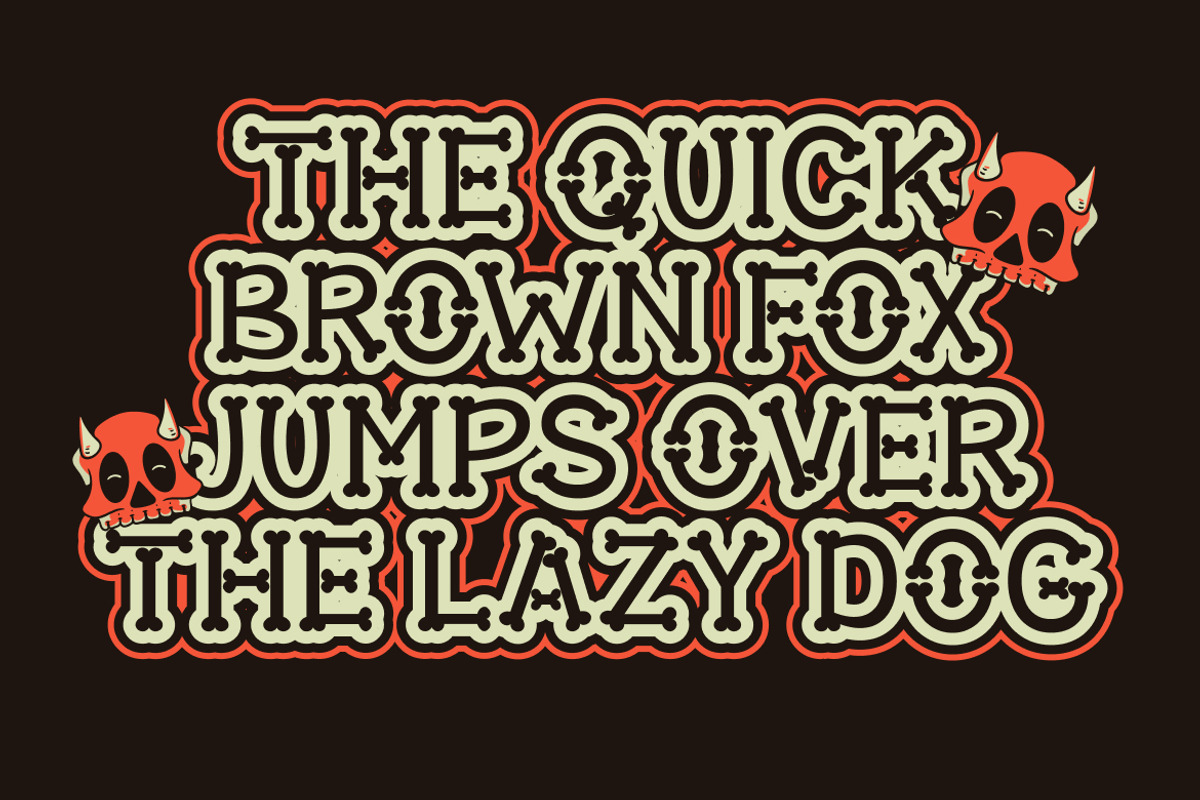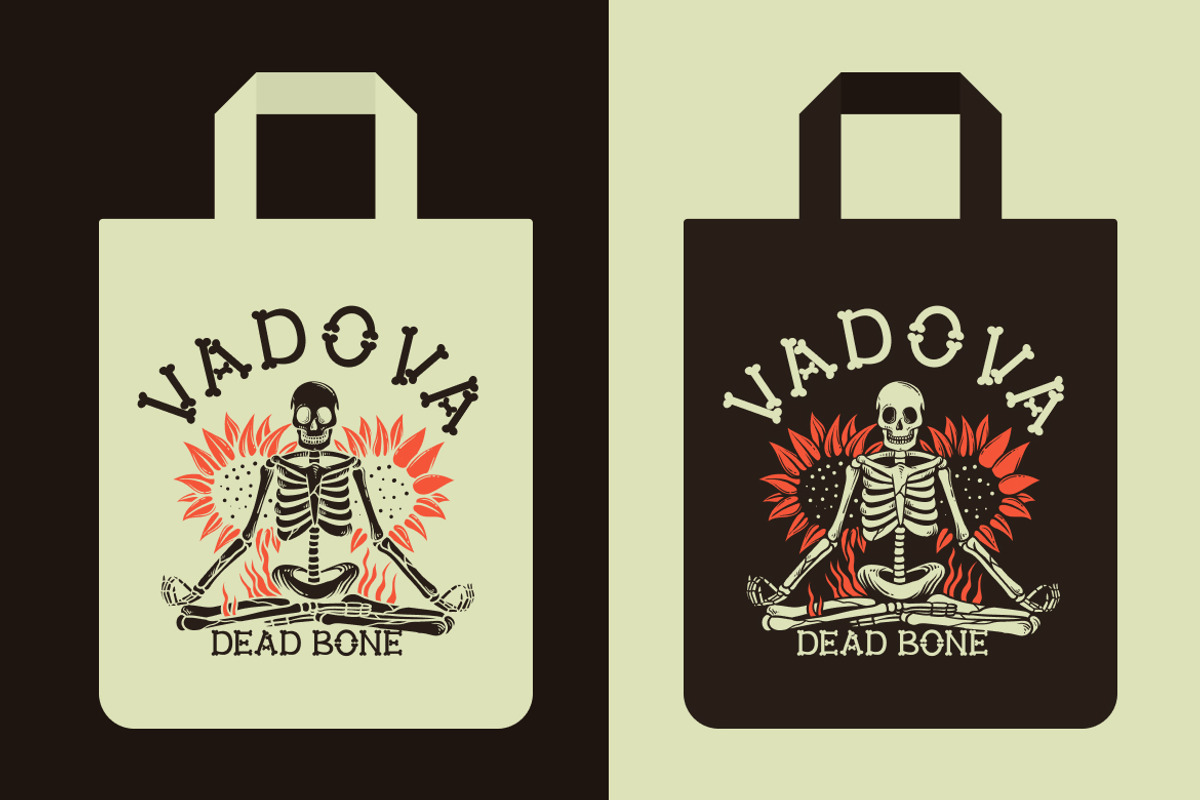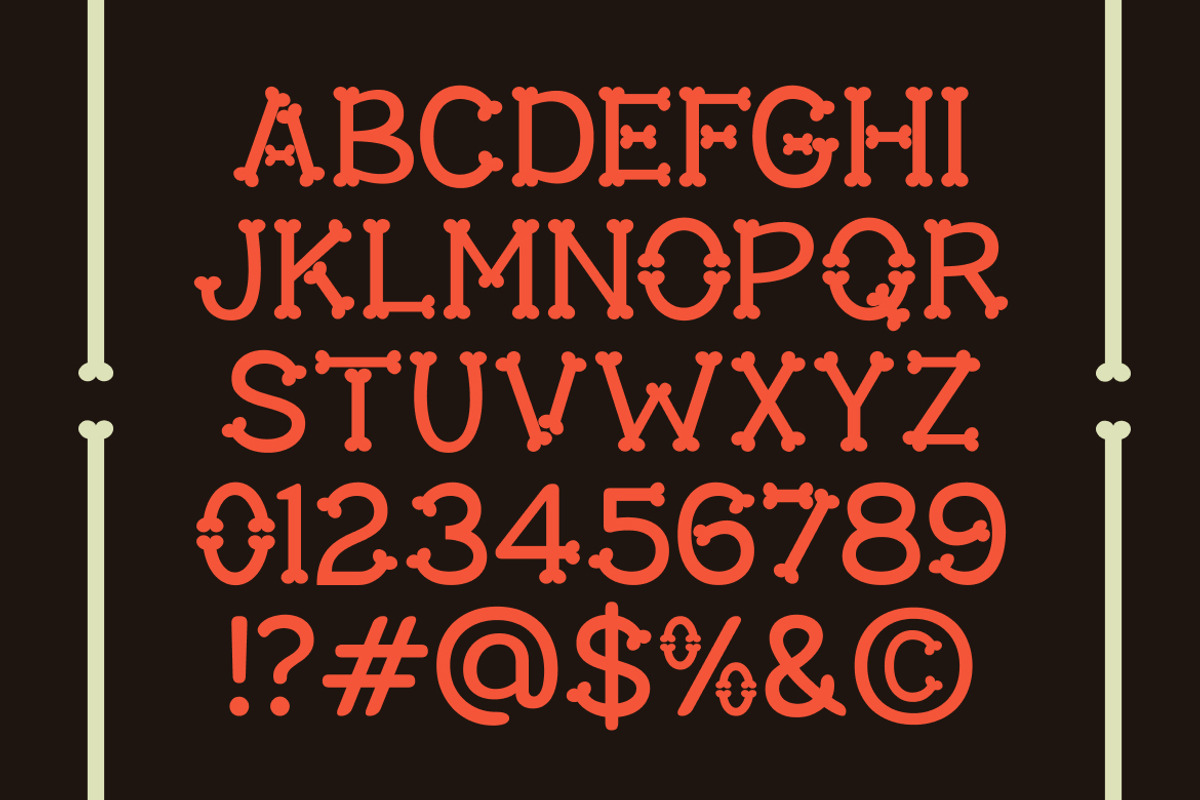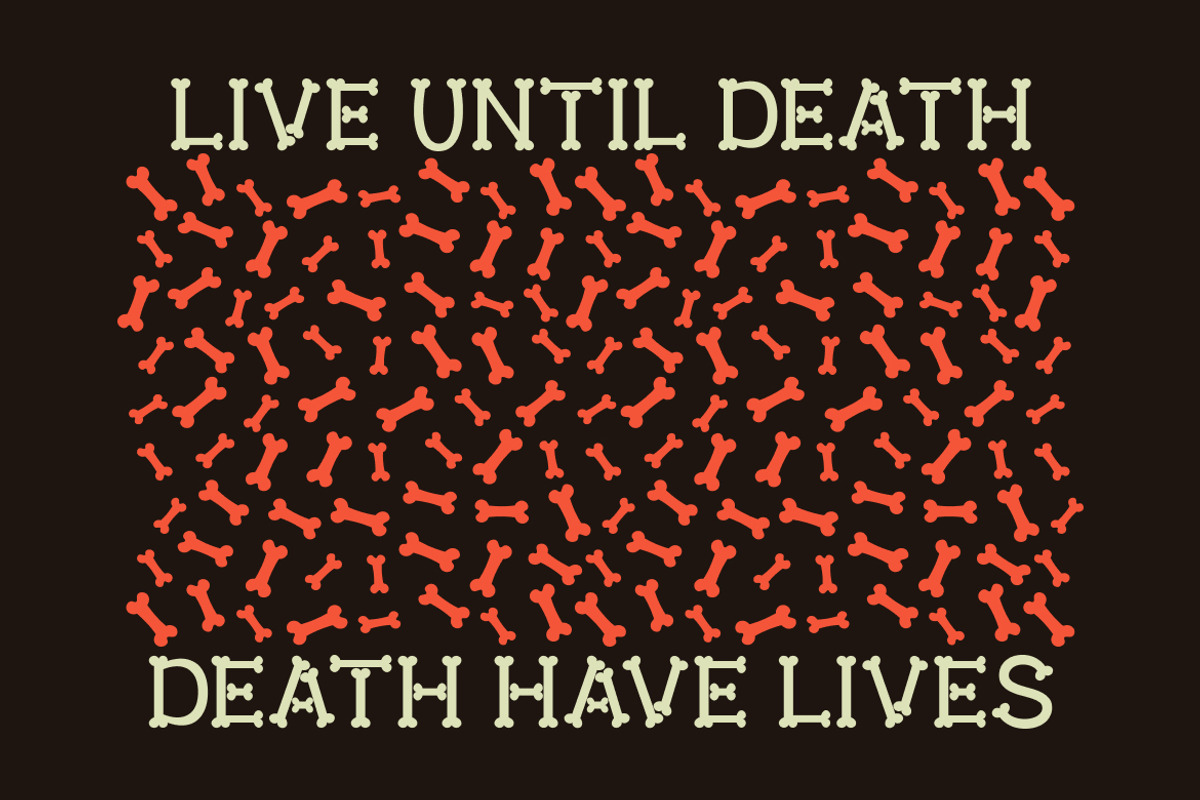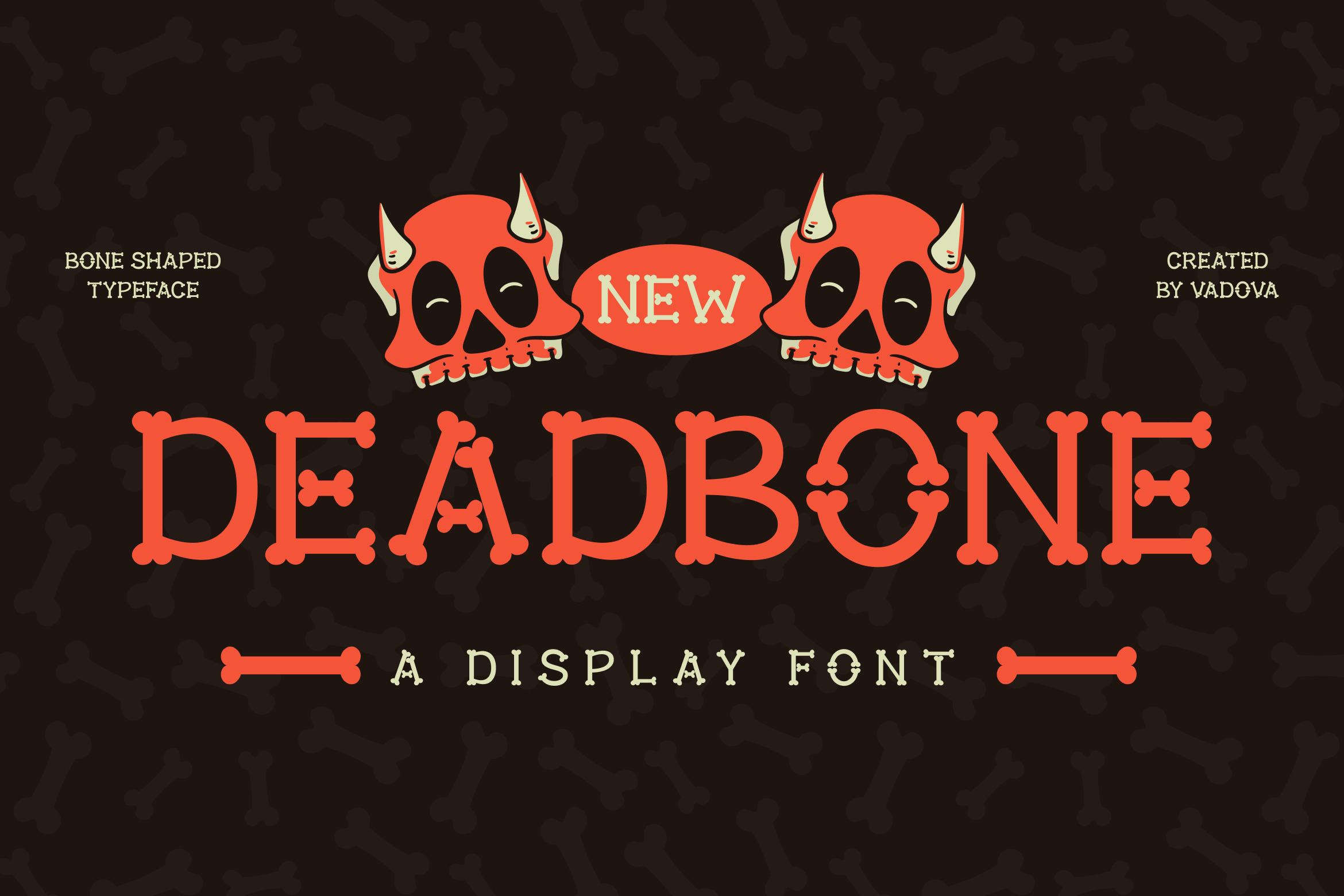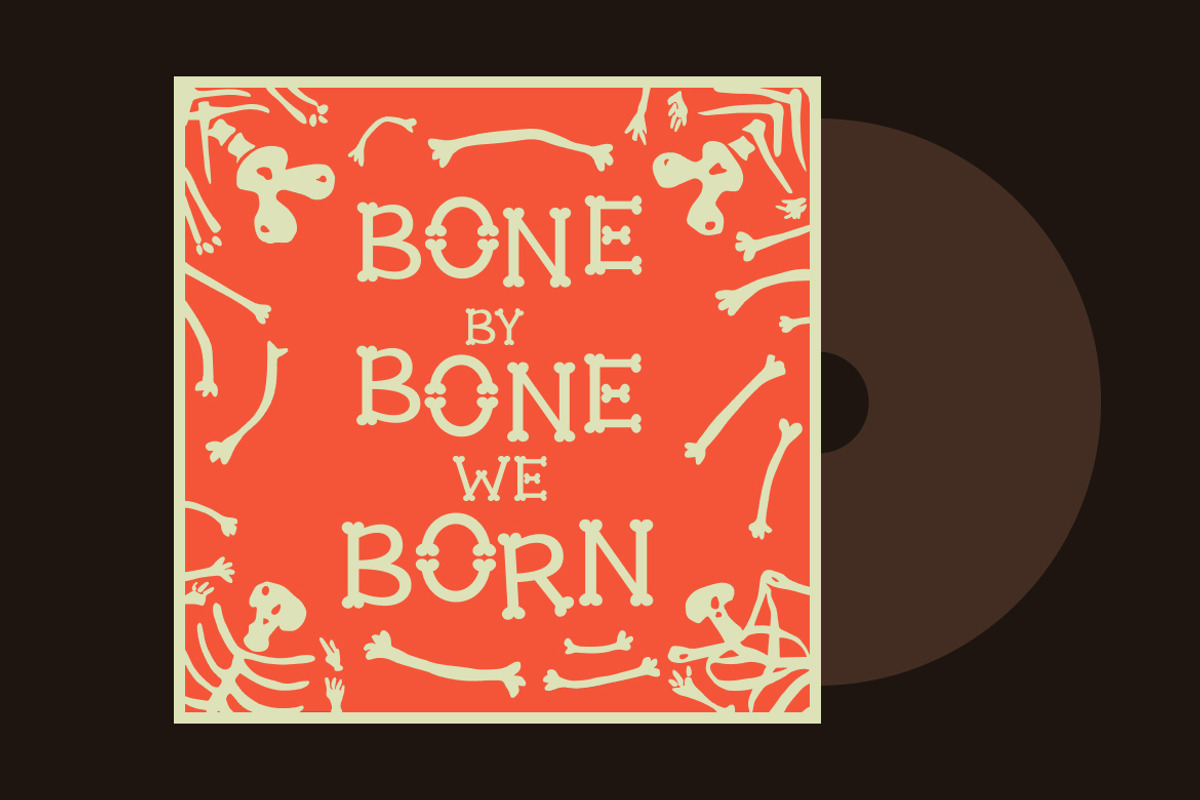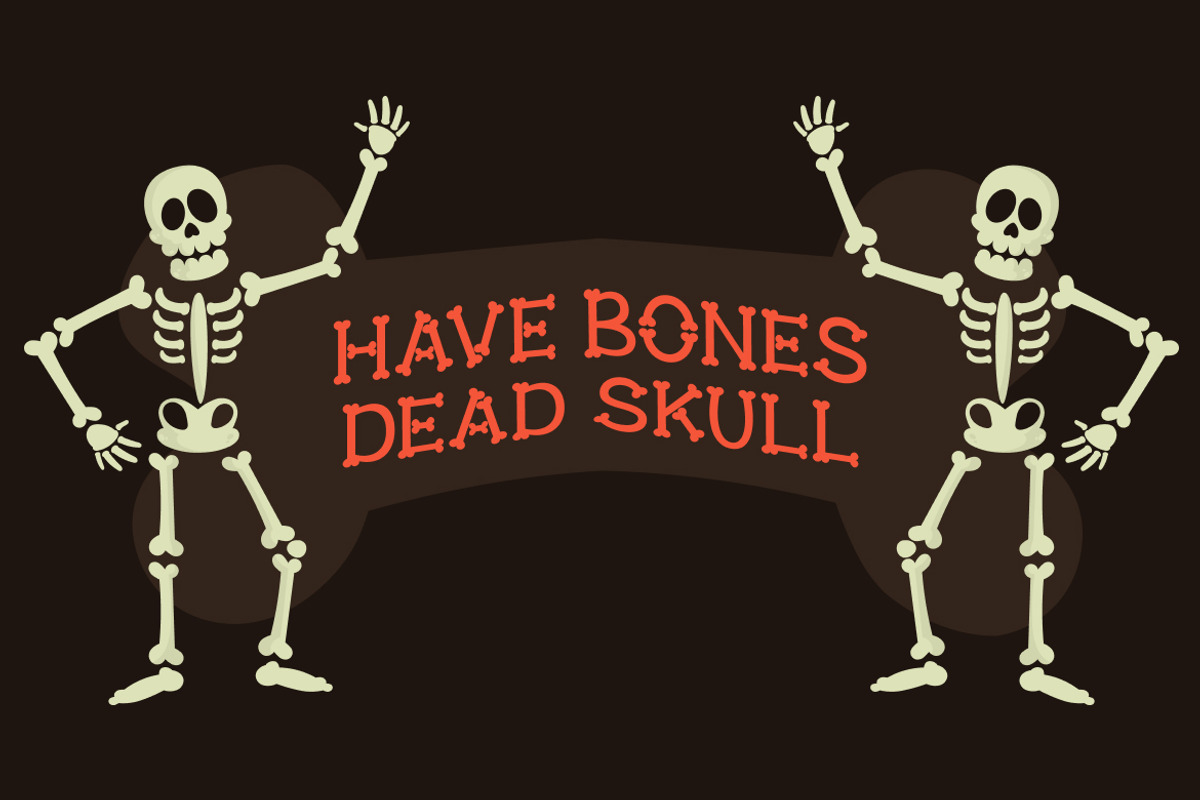
Deadbone – Halloween Bone Font
Deadbone is a quirky and playful bone-shaped display font created by Vadova Studio. Designed with a unique skeletal concept, this font captures a fun yet spooky vibe perfect for Halloween themes, horror titles, or any creative project that needs a touch of dark humor.
Each character is carefully built from stylized bone segments, giving the typeface a cartoonish yet eerie personality. The rounded terminals and bold proportions ensure strong readability, making Deadbone not only decorative but also functional for both print and digital layouts.
Combining fun and fright, Deadbone delivers a distinctive visual rhythm that stands out in posters, party invitations, children’s Halloween books, and festive packaging. It’s a perfect balance of creepy and cute — ideal for designers looking for something unforgettable.
- Uppercase display font inspired by bone shapes
- Rounded skeleton forms for playful and spooky aesthetics
- Perfect for Halloween, kids’ designs, and horror themes
- Strong legibility with bold structure and fun curves
- Designed to evoke both humor and eerie charm
- Complete uppercase, numbers, punctuation, and symbols
- Works seamlessly for print, web, and motion design
- Perfect for posters, packaging, and seasonal branding
Relevance and Use Cases is perfect for Halloween parties, spooky posters, horror games, children’s book titles, event invitations, themed packaging, costume branding, greeting cards, social media visuals, and creative lettering projects. It’s ideal for designers seeking a bold and humorous display font with a Halloween twist.